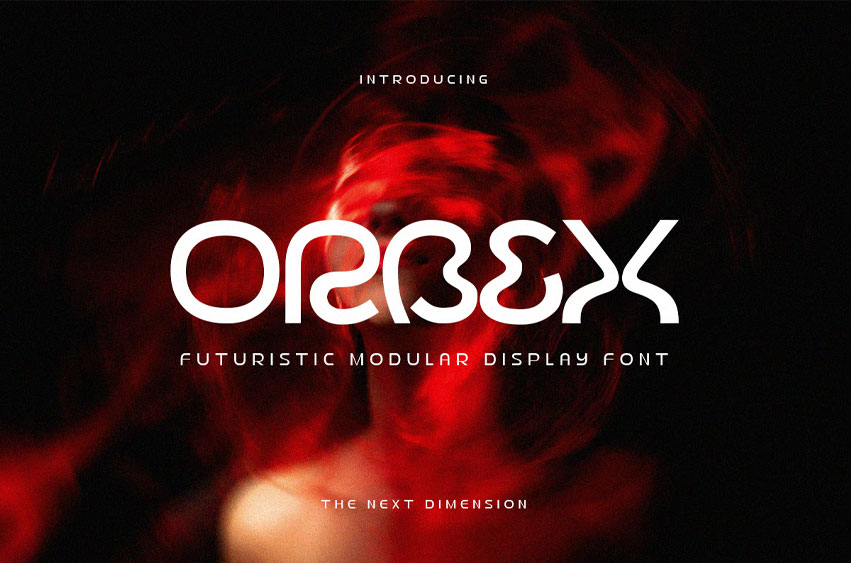
Orbex Font is a futuristic modular display font inspired by the next frontier of design—space, innovation, and digital dimensions. With its dual personality system, Orbex offers both standard and alternate character sets, allowing you to switch between clean geometric forms and expressive sci-fi curves with ease.
This typeface is perfect for tech branding, movie titles, game interfaces, digital posters, and avant-garde editorials. The modular structure and unique glyph shaping make it ideal for anyone looking to push the limits of typography into the next dimension.
- Dual personality (standard & alternate styles)
- Futuristic aesthetic with modular geometry
- Perfect for sci-fi, tech, gaming, and innovation-themed designs
- Technology & startup branding
- Music covers and experimental album art
- UX/UI headlines
- Posters and magazine layouts
- Futuristic logos and product packaging
Push your creativity into The Next Dimension with Orbex. Whether you’re shaping the void or building the identity of a visionary brand, Orbex is your modular tool for futuristic expression.